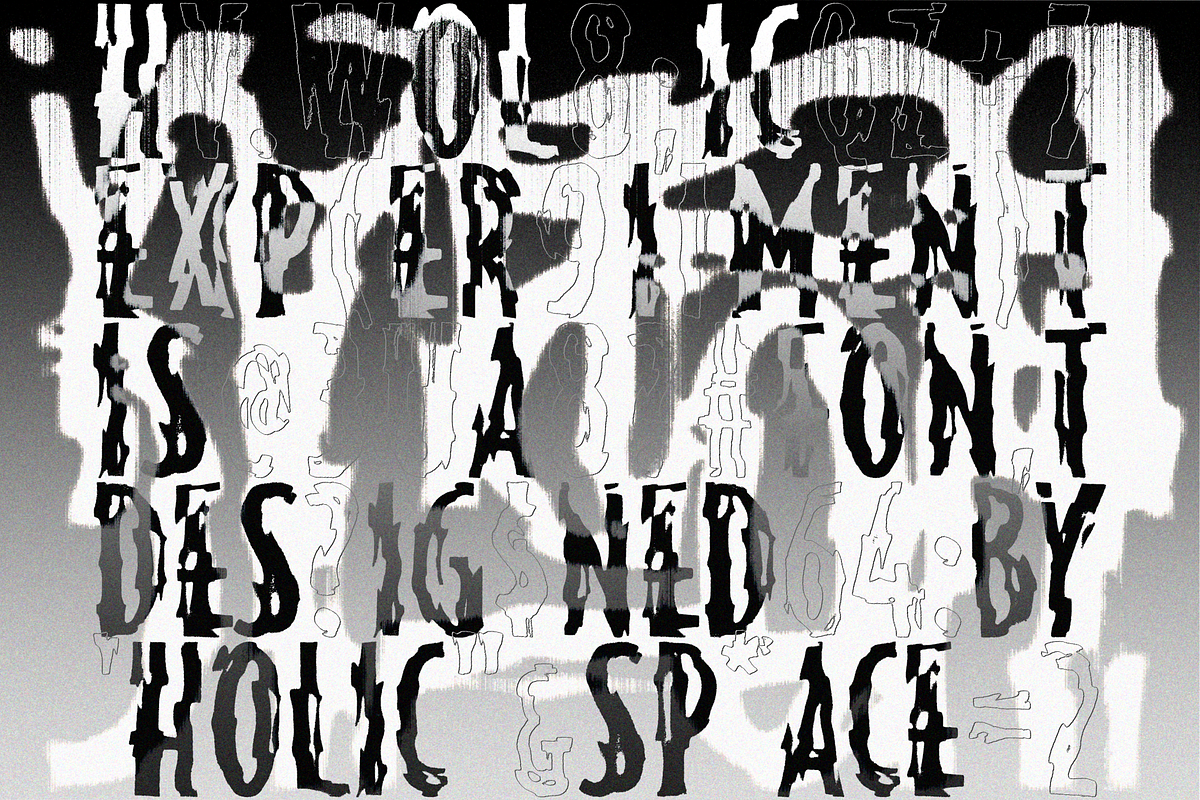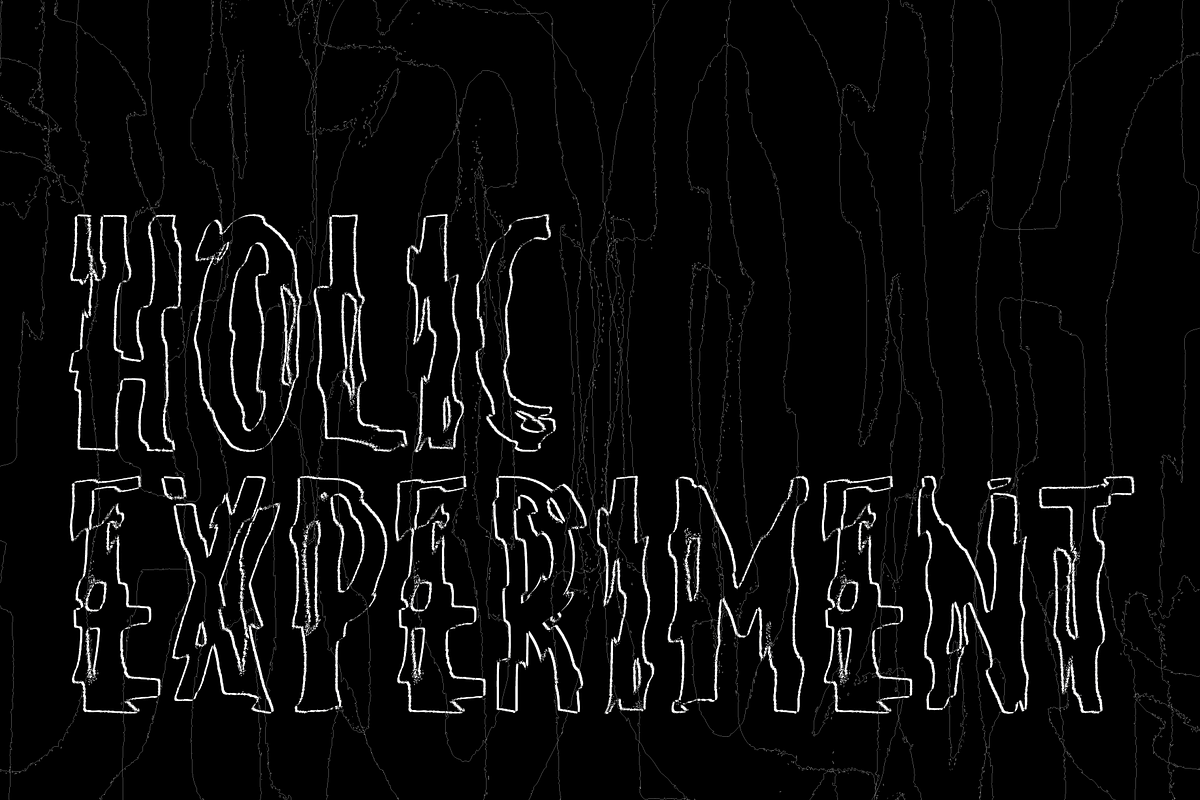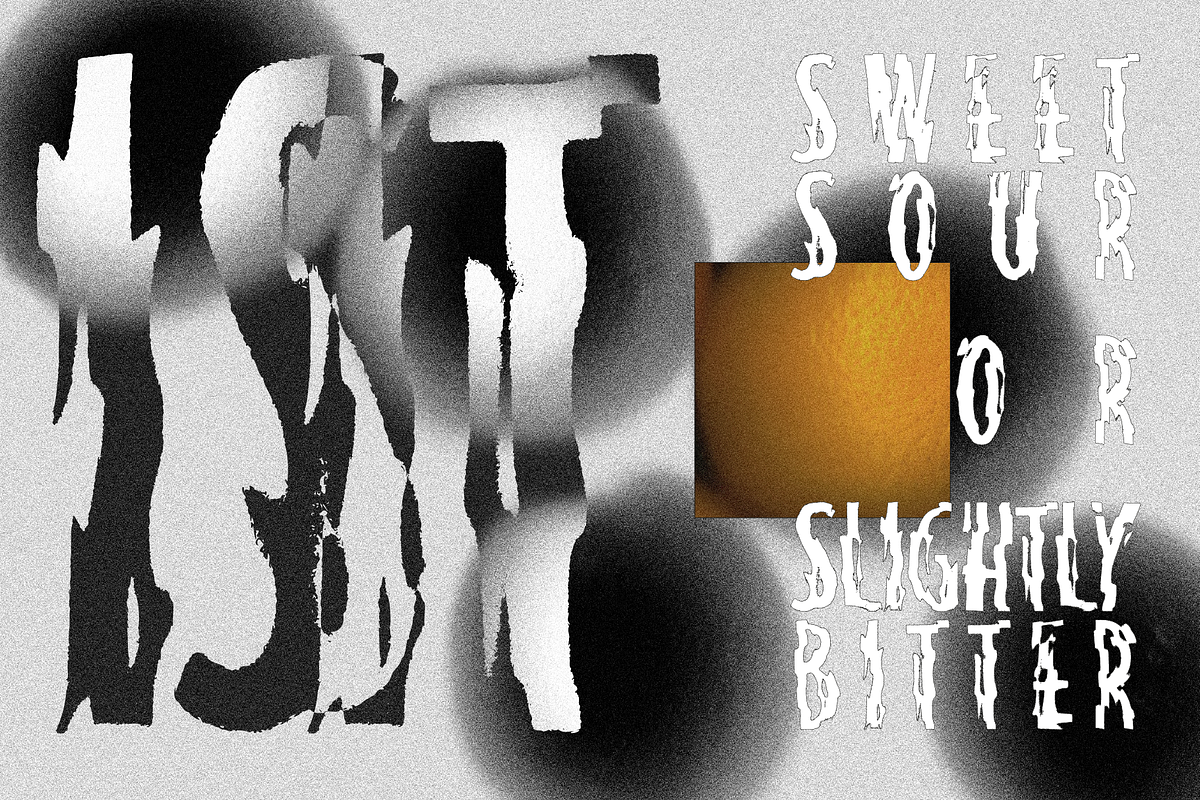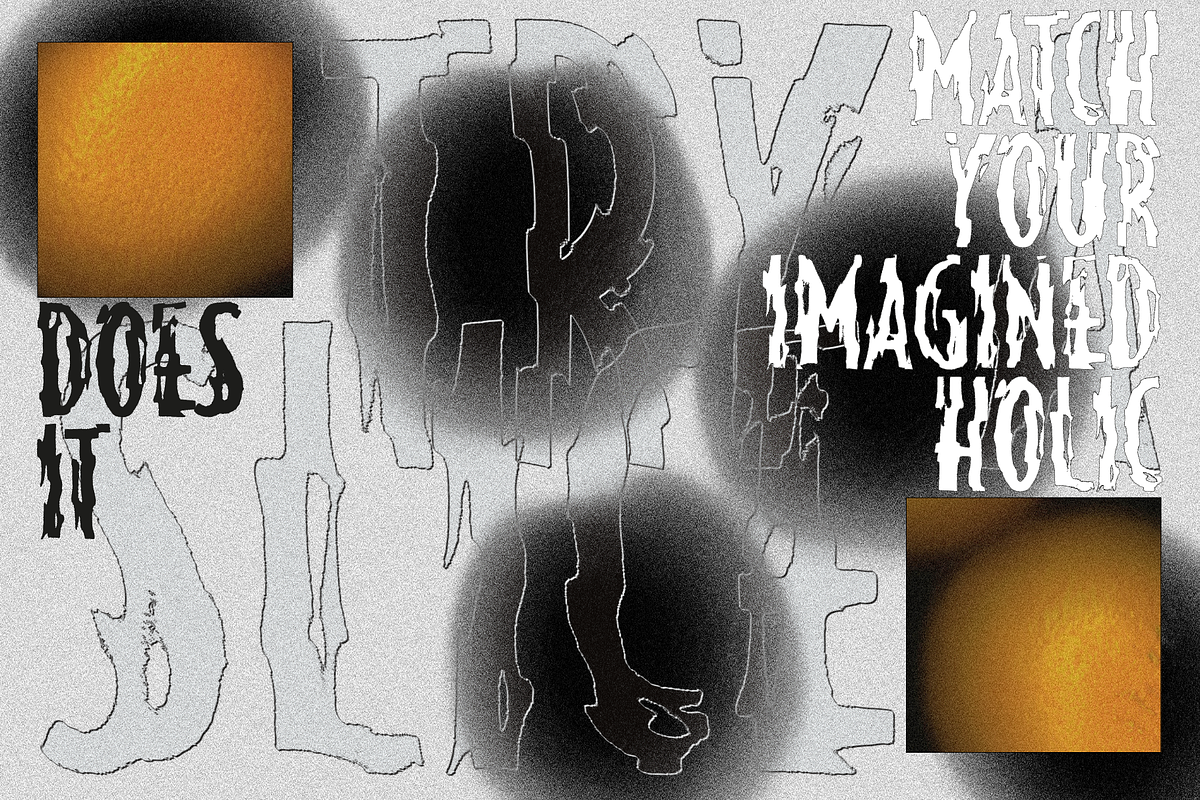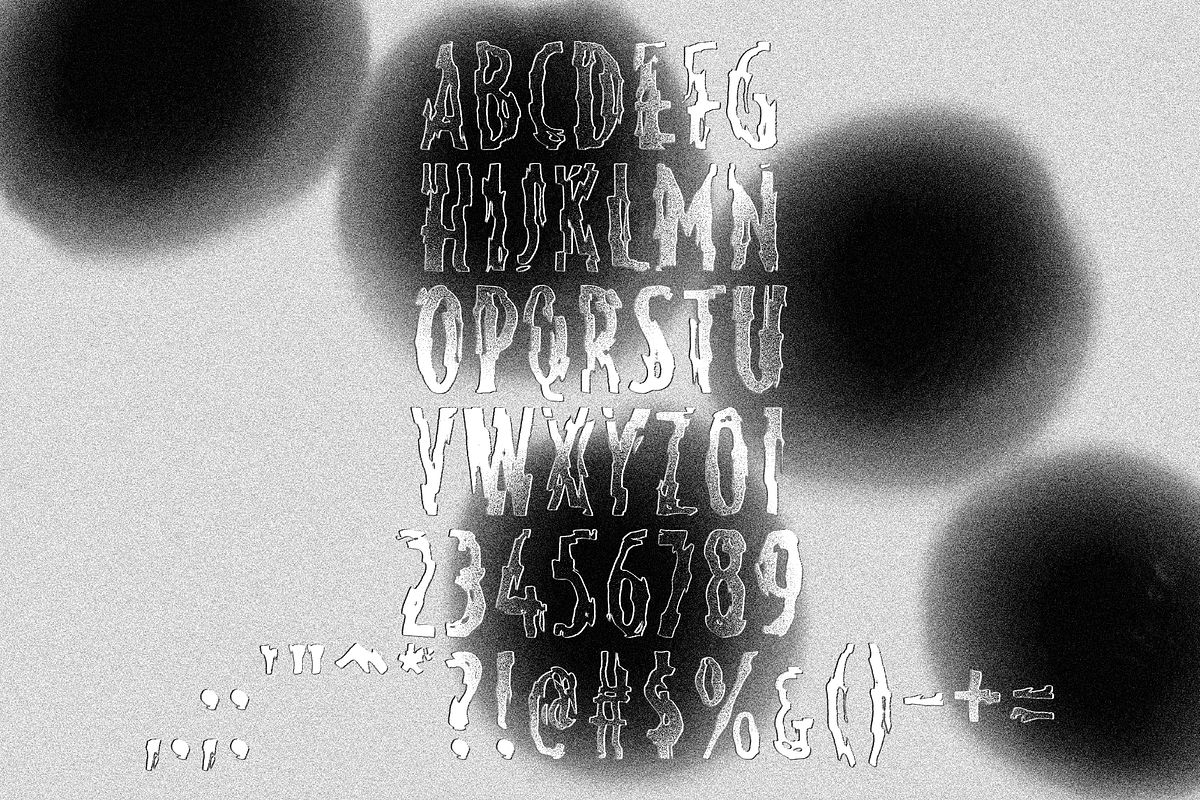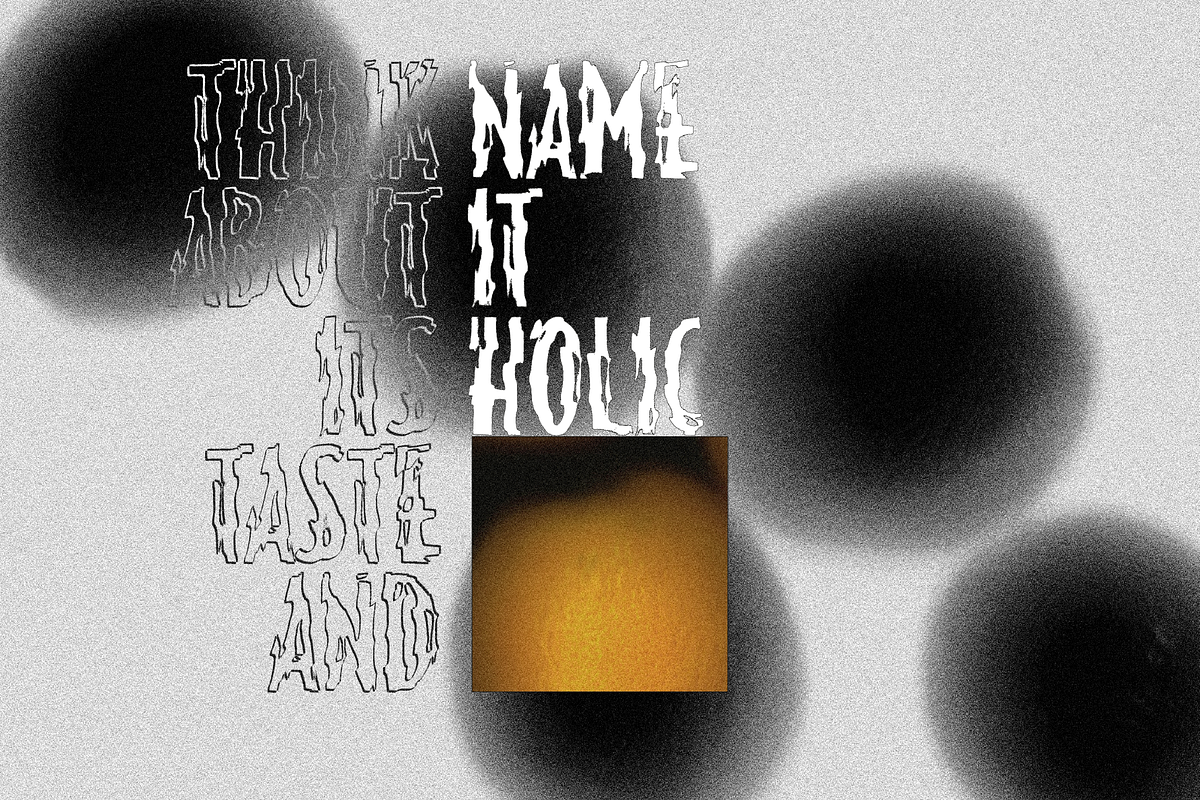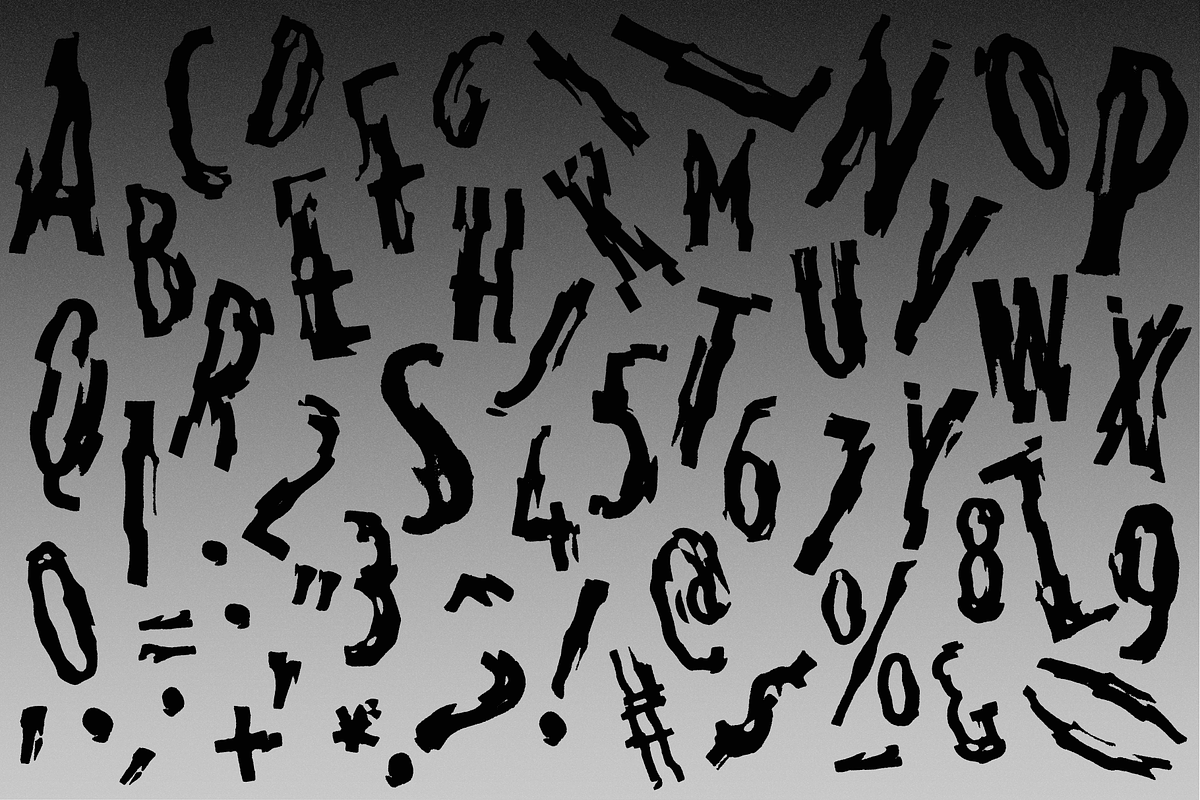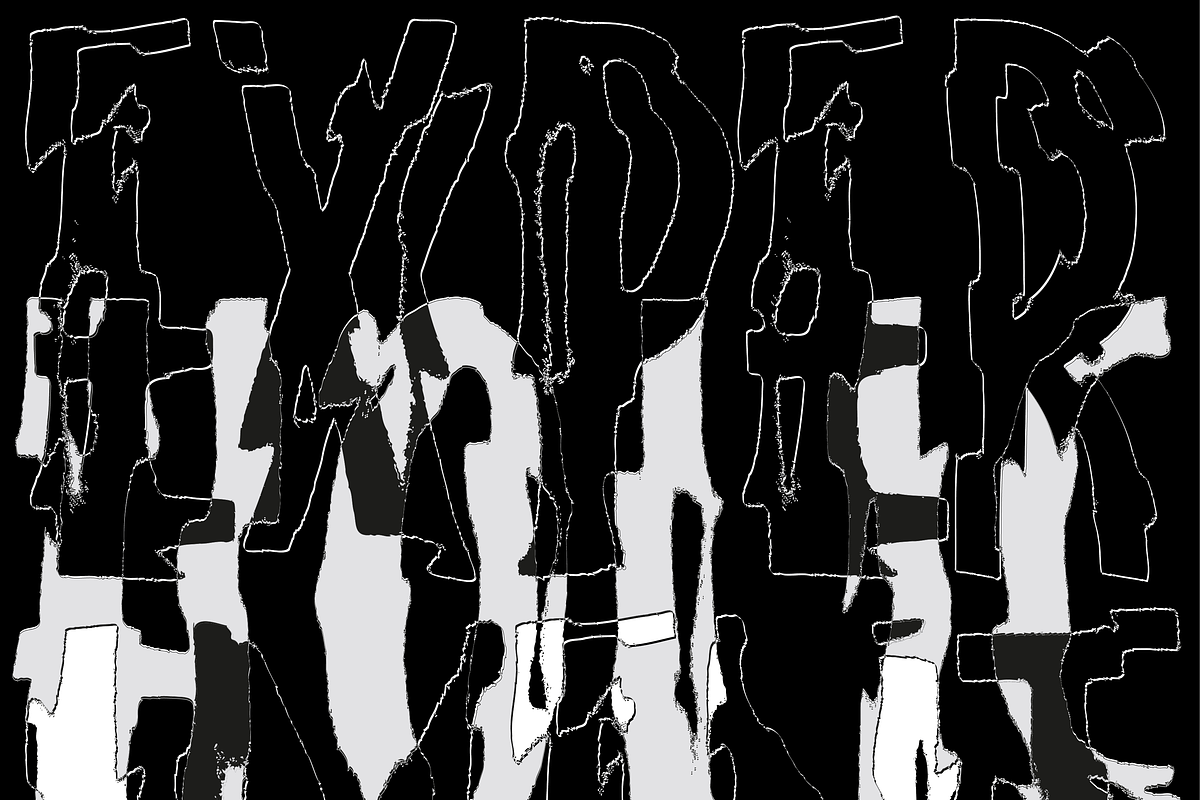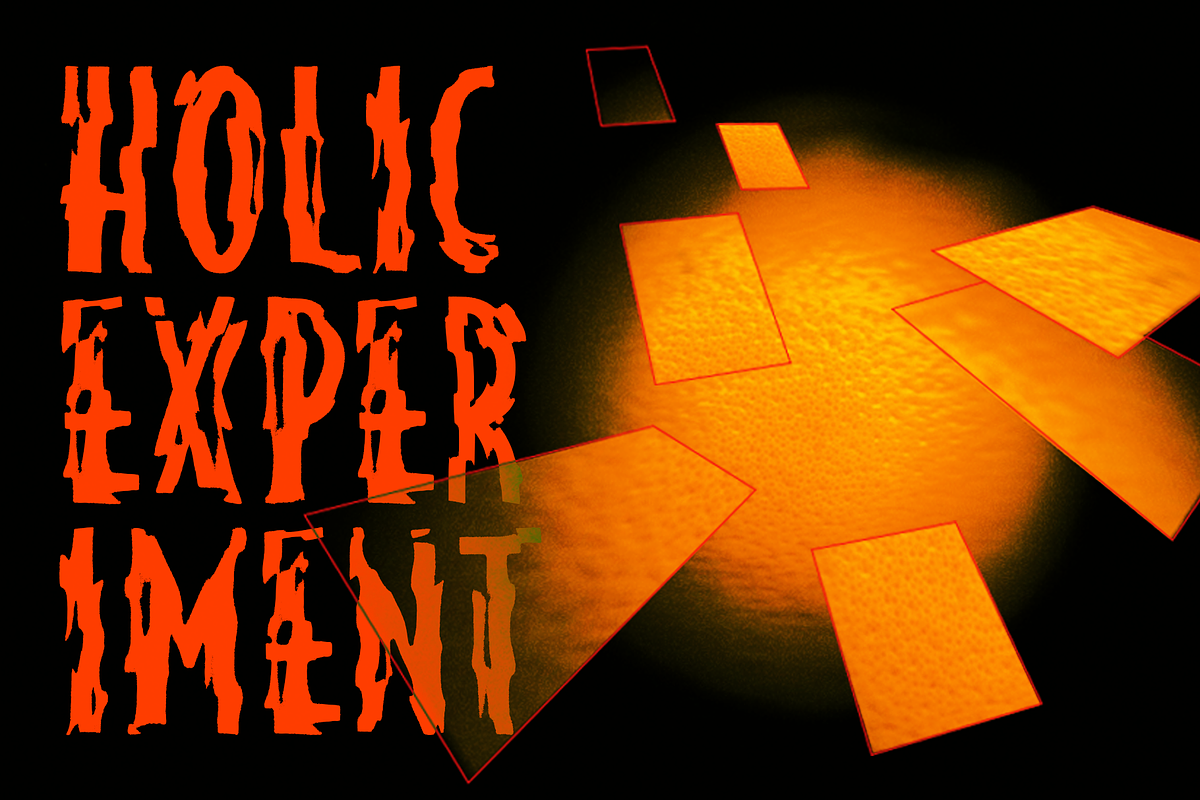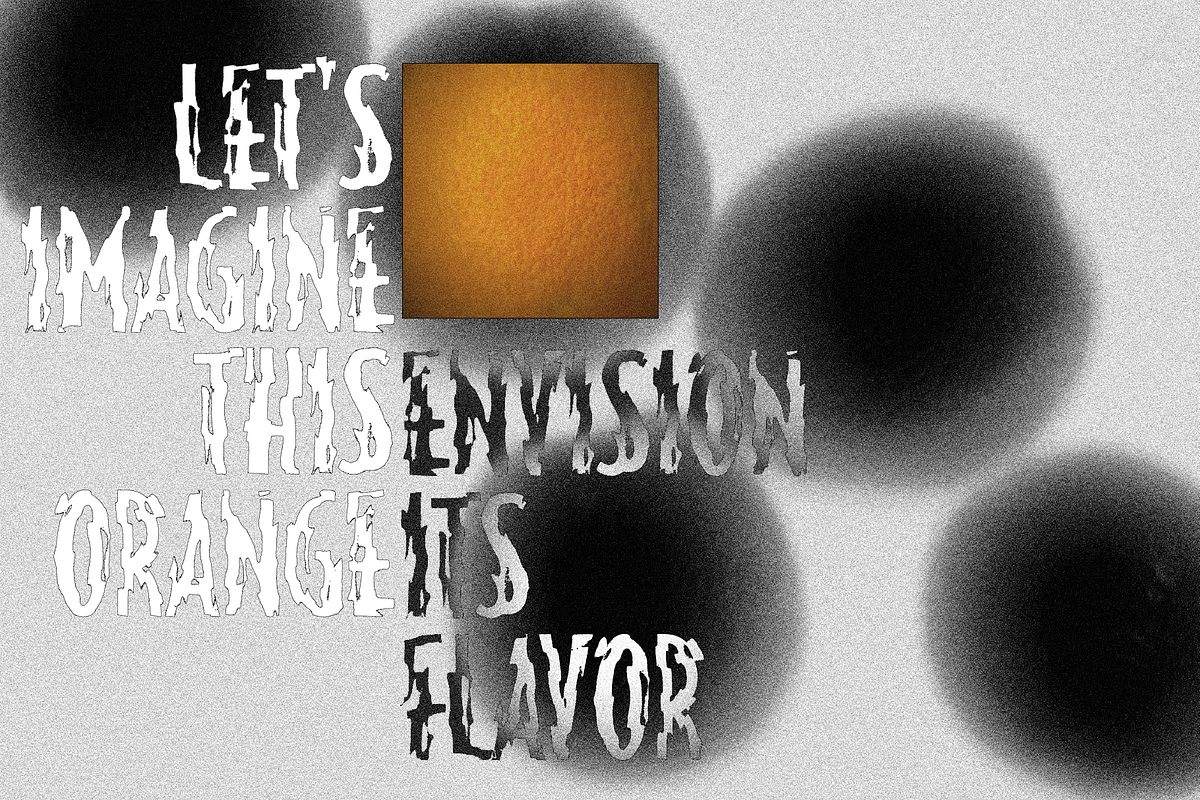
HOLIC Experiment
HOLIC Experiment – an all-caps experimental font that plays with abstractness and randomness, perfect for logos, posters, and headlines.